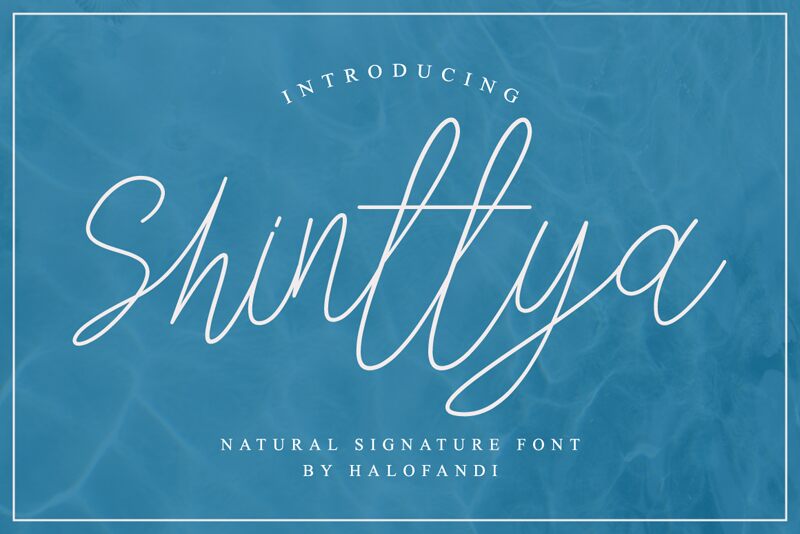
Shinttya
Shinttya is a flowing handwritten font, described by an elegant touch, perfect for your favorite projects. Fall in love with its incredibly distinct and timeless style and use it to create spectacular designs!